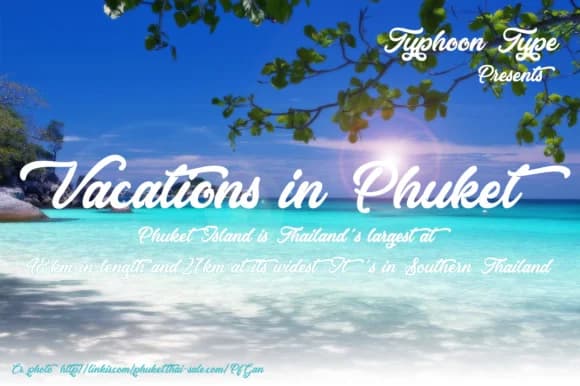
About Vacations in Phuket Font
Vacations in Phuket by Typhoon Type™ is a bold handwritten script that brings authentic personality and expressive visual flair to design work across multiple creative disciplines and industries. This flowing cursive typeface commands immediate attention through its confident, substantial letterforms and unmistakably hand-drawn character, making it an exceptional choice for wedding invitation suites, anniversary card designs, boutique retail packaging labels, and special occasion projects that demand genuine visual distinction. The strong, consistent stroke weight ensures excellent performance across various scales and diverse design contexts without sacrificing readability.
From restaurant menu designs and eye-catching event posters to personalized monogram artwork, handcrafted product tags, and branding projects for independent creators and small businesses, Vacations in Phuket demonstrates impressive versatility across design categories where genuine authenticity resonates powerfully with modern audiences. The typeface successfully bridges contemporary design sensibilities with organic hand-lettered warmth and distinctive personality, delivering substantial visual impact across social media graphics, print collateral, marketing materials, and branded creative projects. Whether displayed prominently at large scale or used more subtly at smaller sizing, the letterforms maintain consistent legibility while preserving the personalized, hand-crafted quality that distinguishes truly hand-lettered fonts from standard mass-produced commercial alternatives.
Vacations in Phuket Font is a script font that shines as a display or heading face. Pair it with a clean sans-serif or serif font for body text — the contrast creates a clear hierarchy while the two styles stay balanced and easy to read.